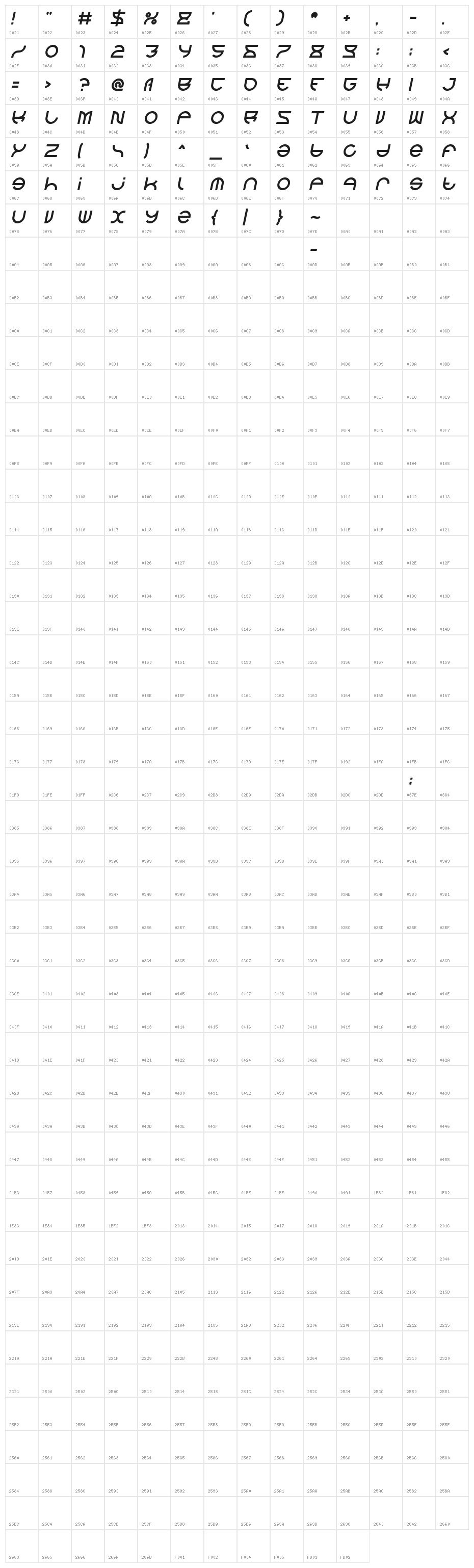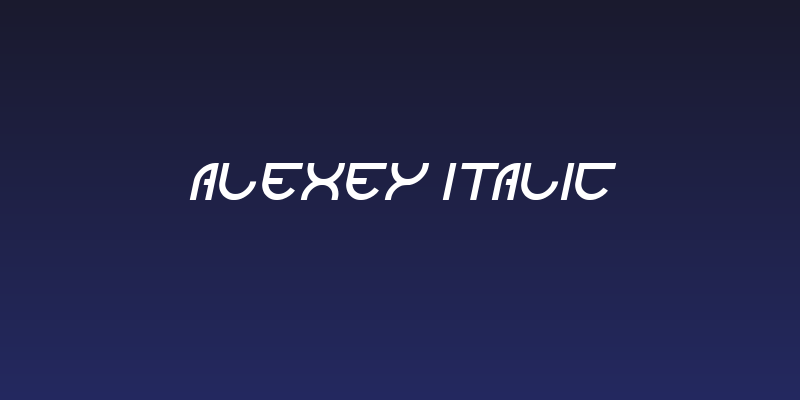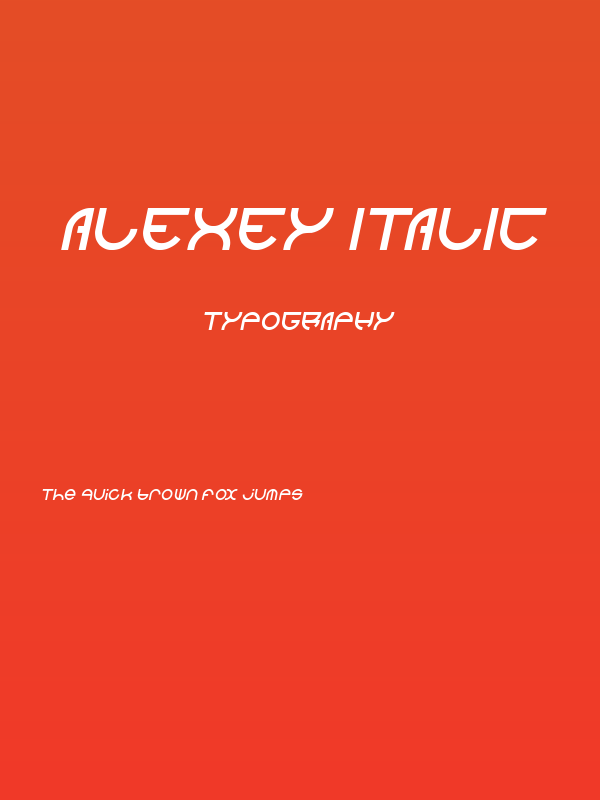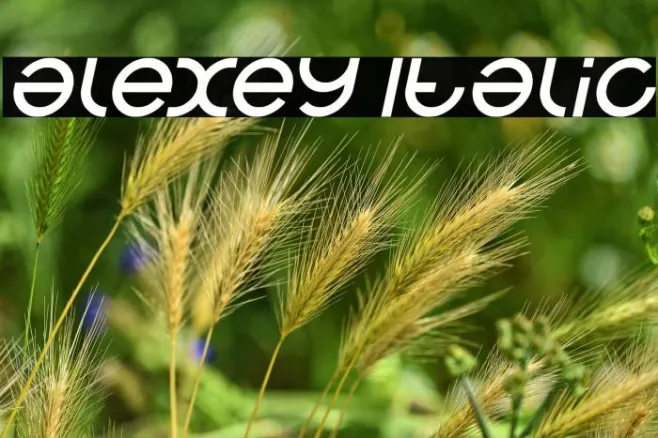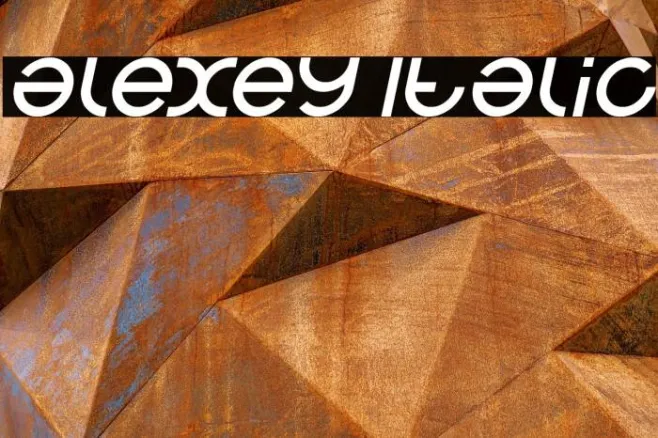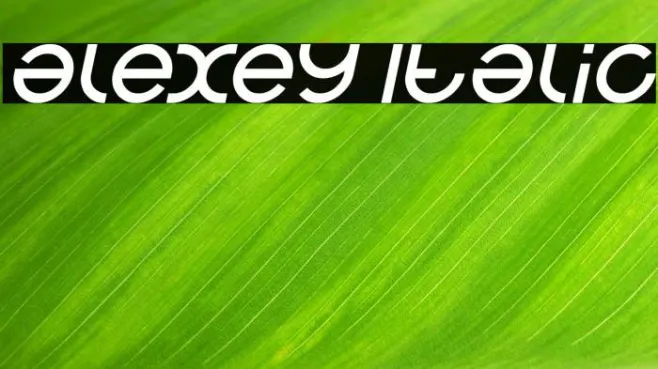
alexey Italic Font
alexey Italic Description
This font features a futuristic and geometric design with a distinct italic slant. The characters are composed of bold, angular lines and curves, creating a dynamic and modern appearance. The uppercase letters exhibit a strong presence with unique cutouts and sharp edges, while the lowercase letters maintain a consistent style with rounded forms and smooth transitions. The numerals are bold and match the overall aesthetic, providing a cohesive look. Special characters are stylized to complement the font's modern and innovative feel, making it suitable for creative and tech-oriented projects.